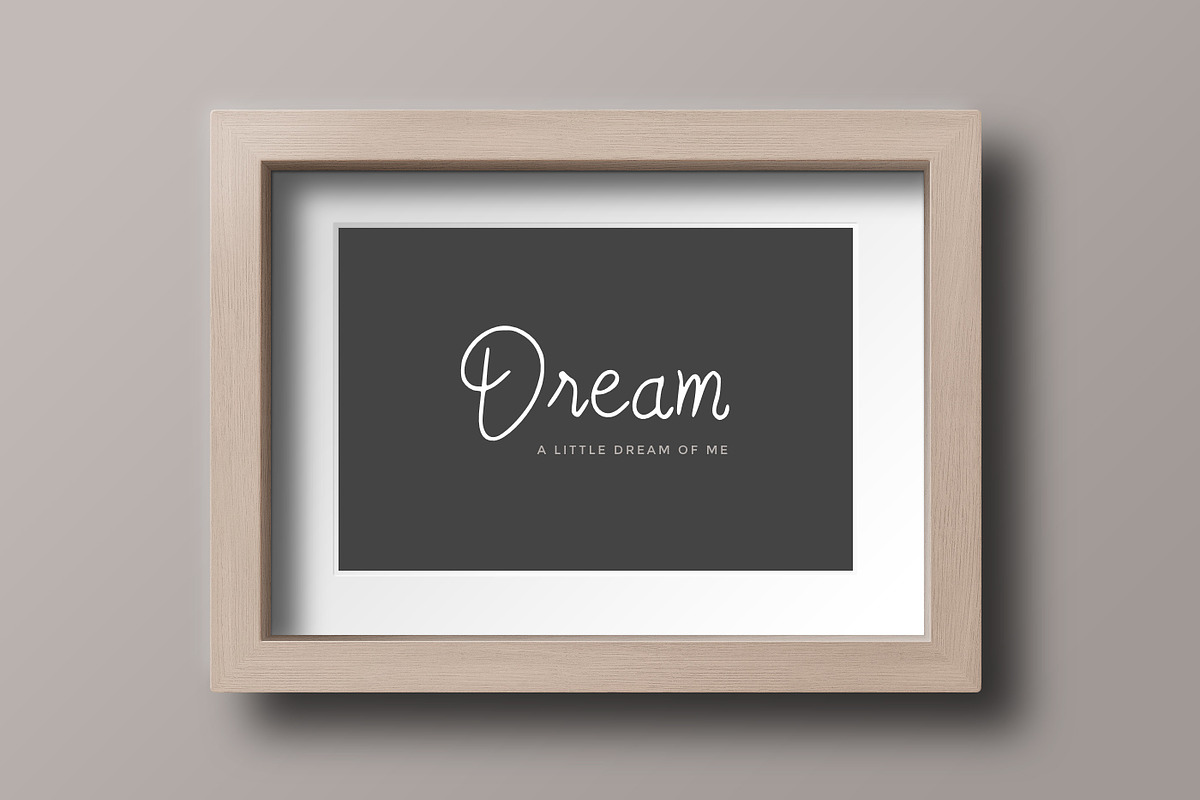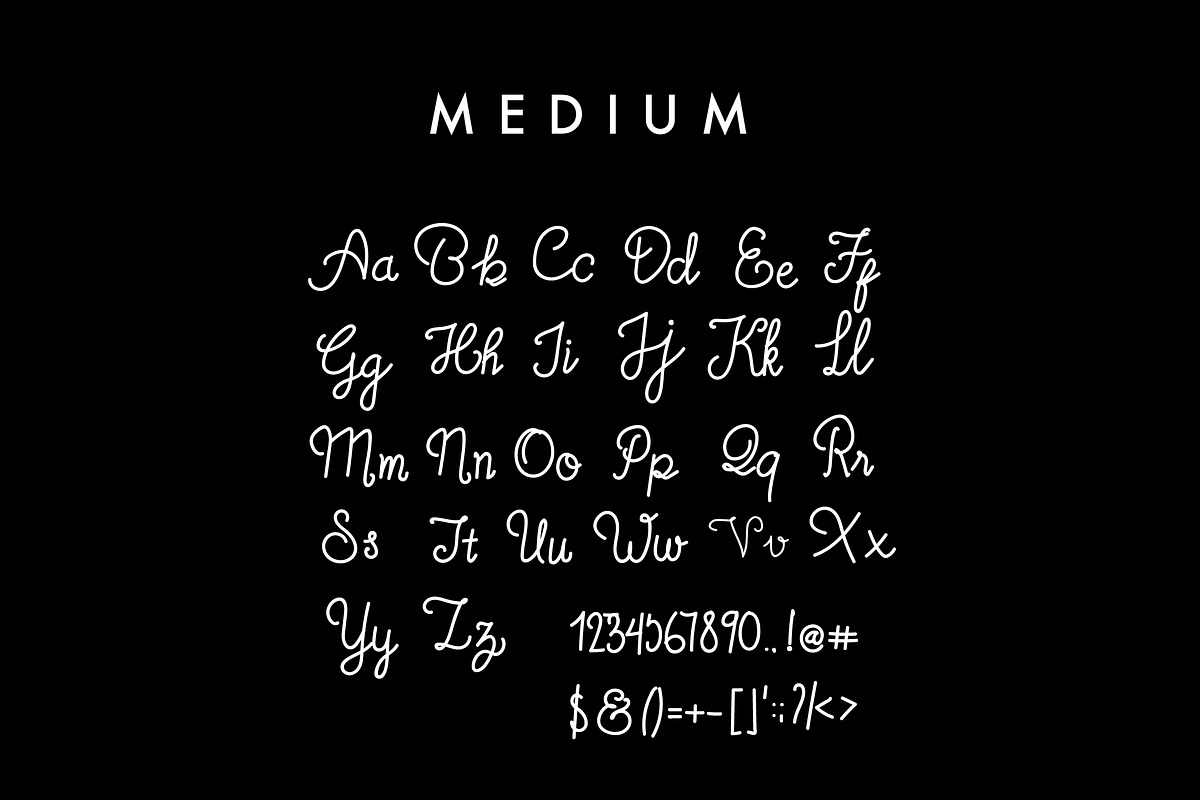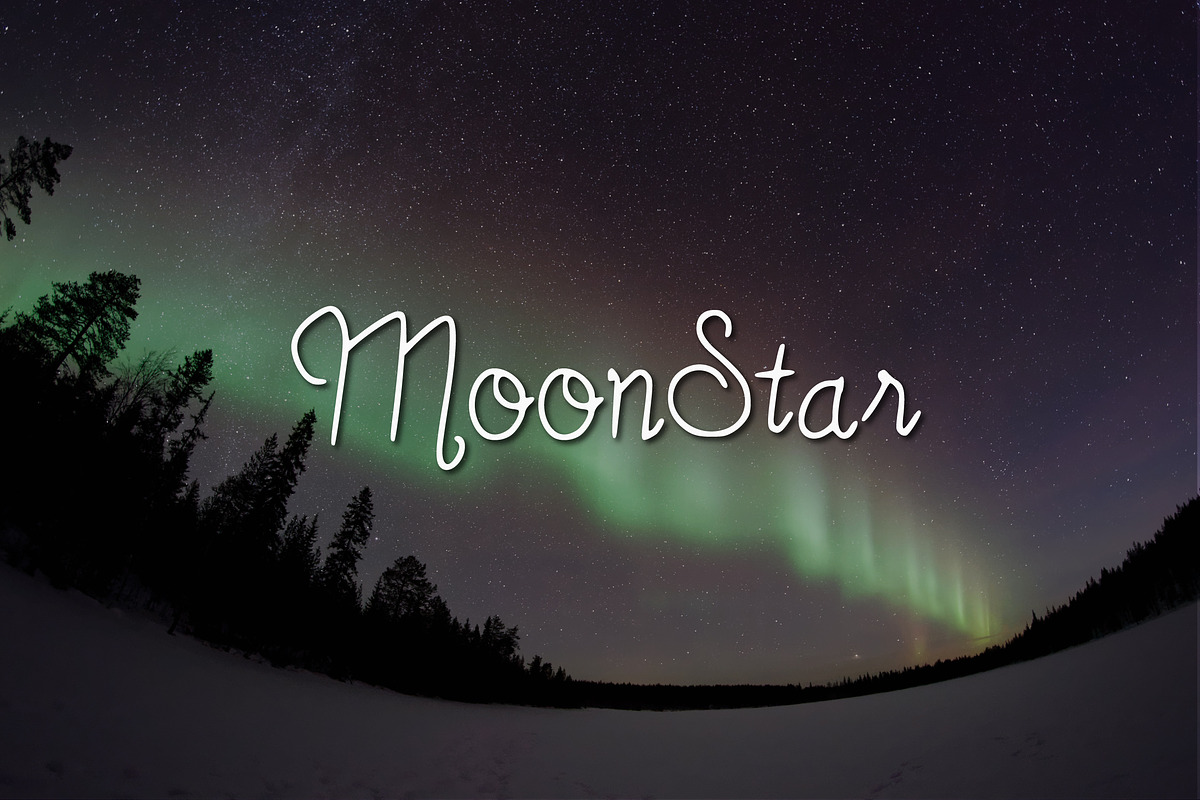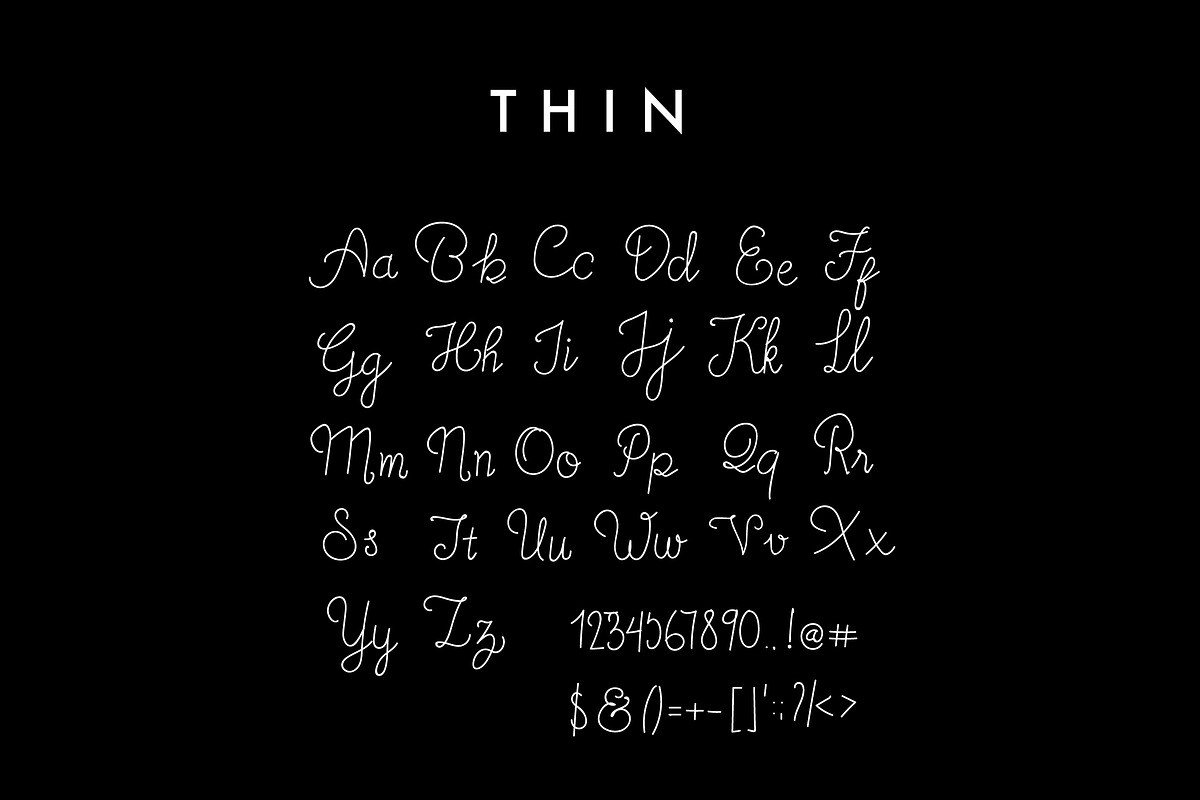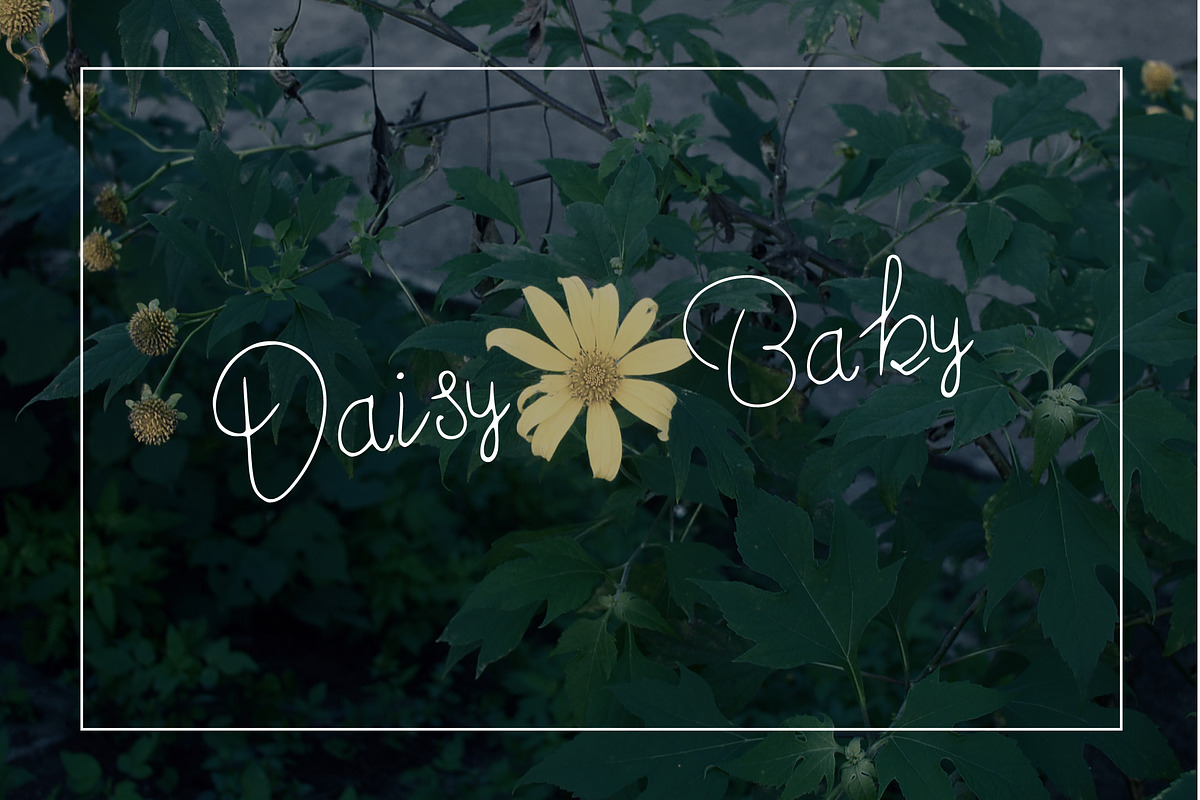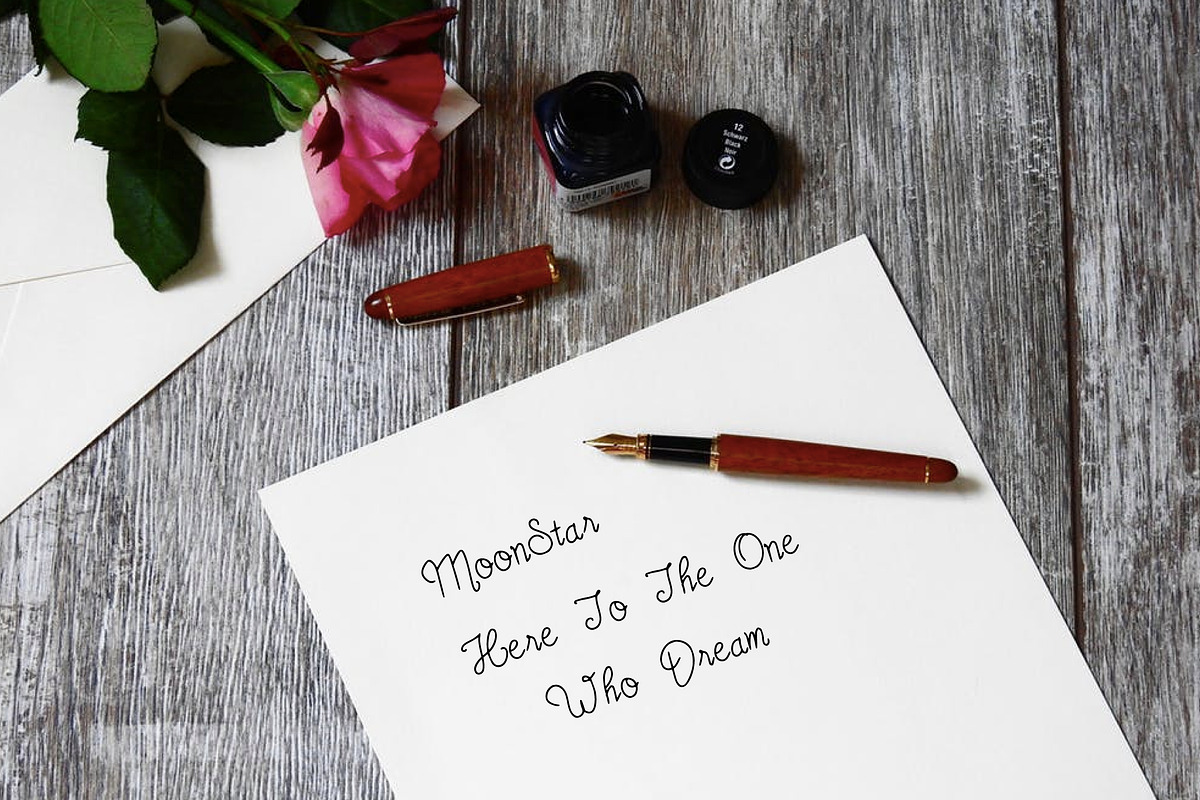
MoonStar Script Font
MoonStar Script Font by RedRiver Studio is a font selected for branding, posters, packaging, typography.
- MoonStar-Thin Thin
- MoonStar Medium
Why MoonStar Script Font is worth a look
MoonStar Script Font by RedRiver Studio fits naturally into Branding, posters, packaging, typography.